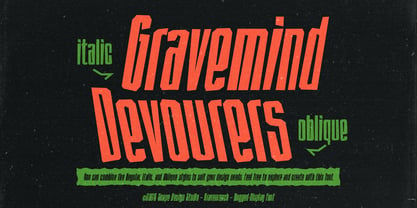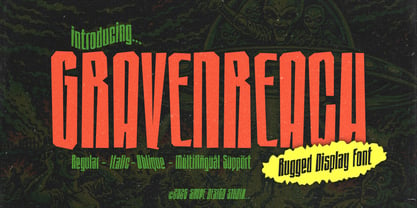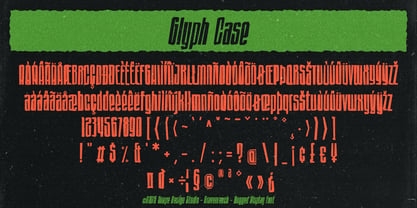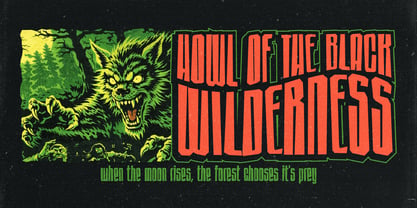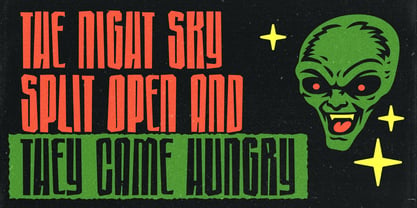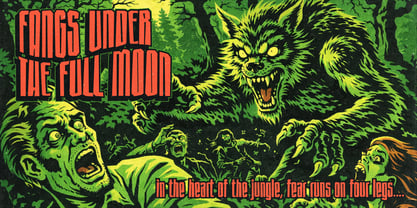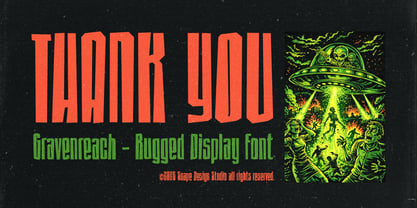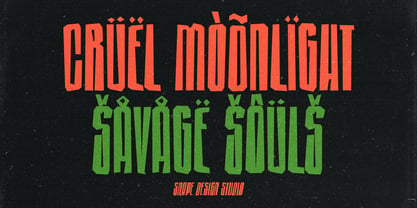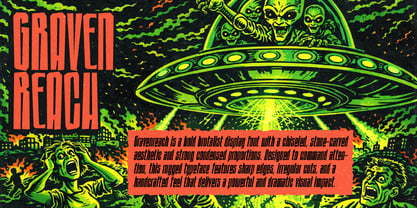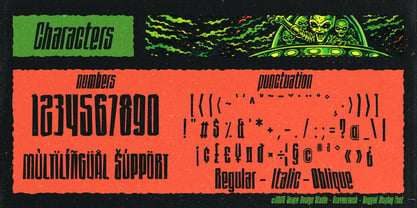
Gravenreach
The Gravenreach Font Family was designed by Ario Sabrang and published by snapedsgn. Gravenreach contains 3 styles and family package options. More about this family
Gravenreach is a bold brutalist display font with a chiseled, stone-carved aesthetic and strong condensed proportions. Designed to command attention, this rugged typeface features sharp edges, irregular cuts, and a handcrafted feel that delivers a powerful and dramatic visual impact. Perfect for logo design, poster headlines, branding projects, album covers, gaming titles, merchandise, and dark-themed graphics, Gravenreach brings a raw, masculine, and monumental character to any layout. If you are looking for a brutalist display font, chiseled typeface, or strong condensed headline font with an intense and distinctive style, Gravenreach is built to stand tall and dominate the stage. Suitable For: Branding & logo design Posters & flyers Editorial and magazine layouts Social media graphics Advertising & marketing materials Web headers and UI design If you have any inquiries or need assistance, please feel free to contact us. We appreciate your support in enhancing your creative projects! Best Regards, Snape Design Studio.